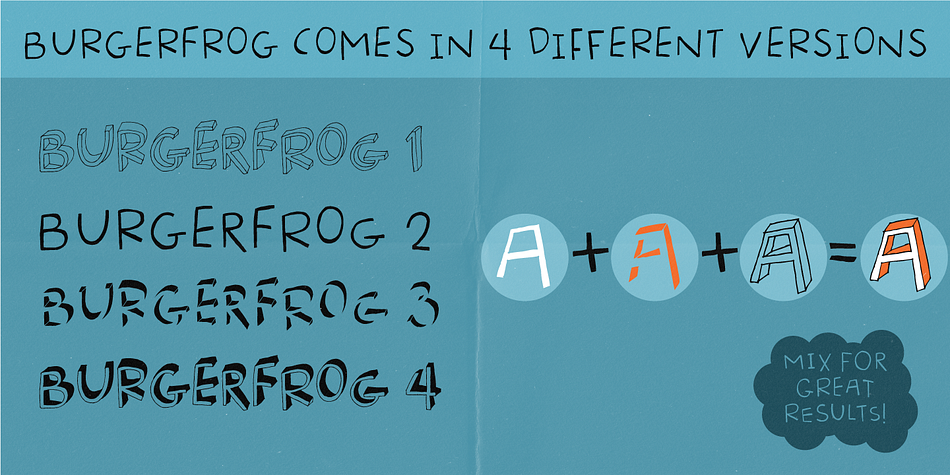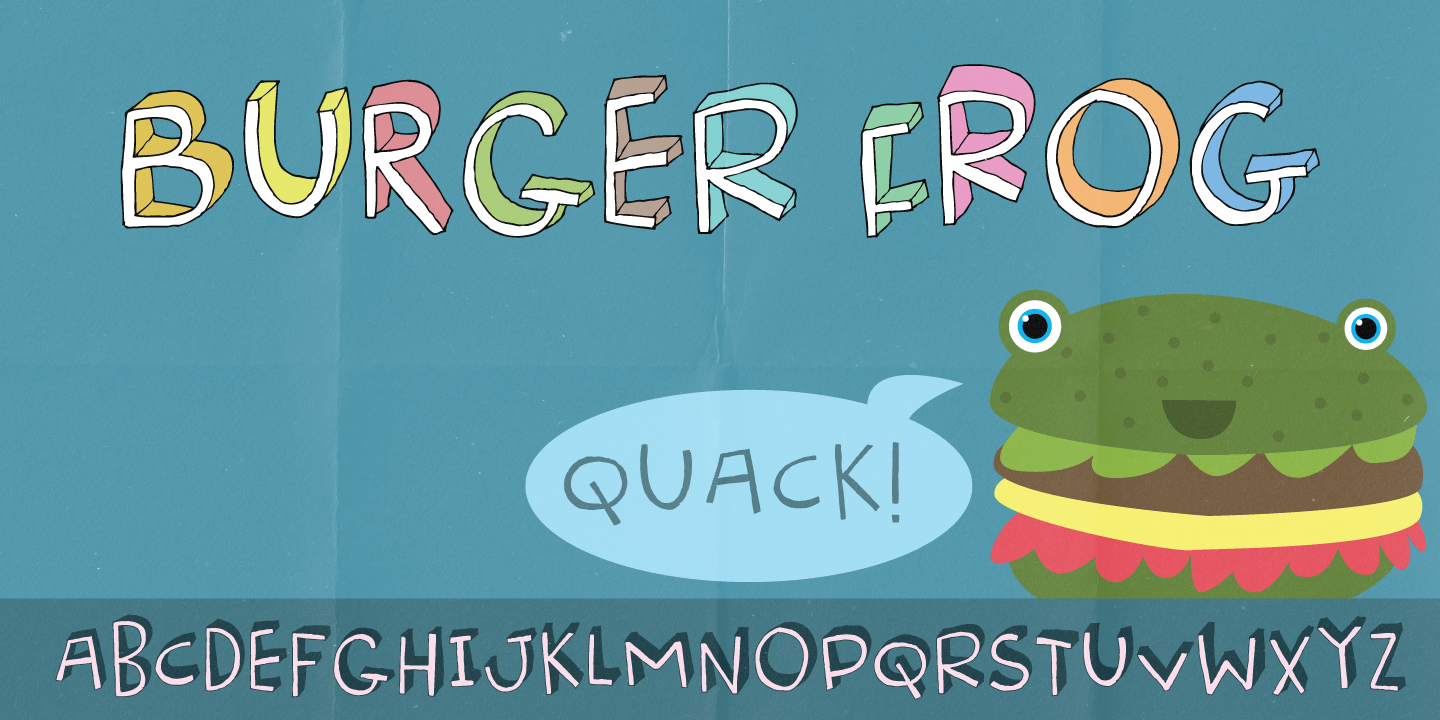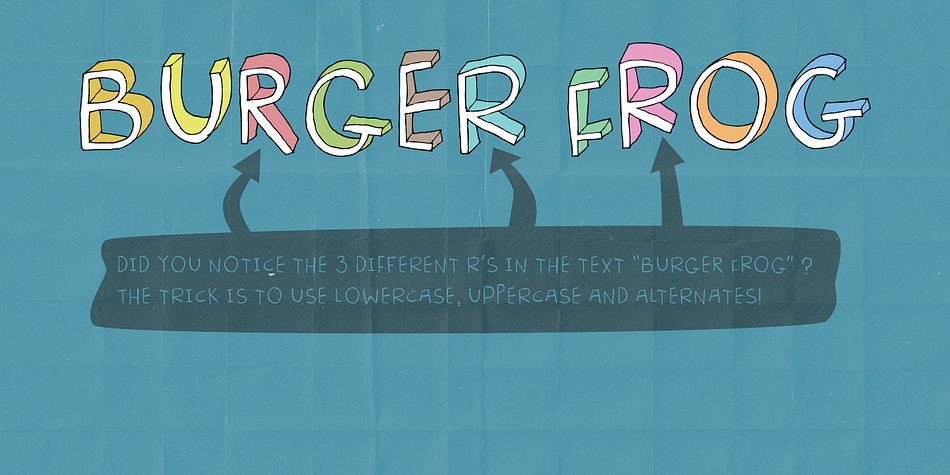
Burger Frog is a display and hand display font family. This typeface has four styles and was published by Pizzadude.dk.
New menu at the restaurant! Burgerfrog is the main course!
But watch out! Itís very addictive! ... well, only if you need a cool handmade font for your headline!
Comes in 4 different versions, and you can combine them to make cool 3d looking letters. Besides that, the font has got both ligatures for double letters and alternate letters from a to z!